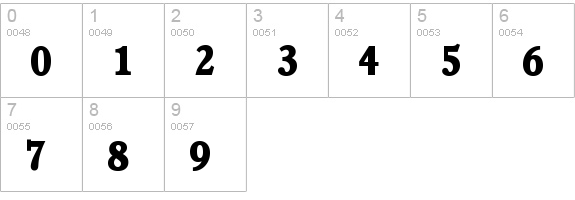
Calgary-ExtraBold is an extra-heavy, attention-grabbing variant in the Calgary typeface family \xE2\x80\x94 well suited to high-impact headlines, posters, and bold branding.
Calgary-ExtraBold font is a striking and bold typeface that commands attention with its strong, confident presence. Its thick, heavy strokes make a powerful statement, perfect for headlines, titles, and display purposes. The robust design of Calgary-ExtraBold exudes a sense of authority and impact, making it ideal for projects that require a bold and dynamic look. What makes Calgary-ExtraBold even more appealing is that it is available for free download at FontsMarket.com. This means you can easily access this impressive font without any cost, making it a valuable addition to your font library. Whether you're working on branding, advertising, or any other design project that demands a bold touch, Calgary-ExtraBold is sure to make a lasting impression. Download it today and elevate your designs with this exceptional typeface.